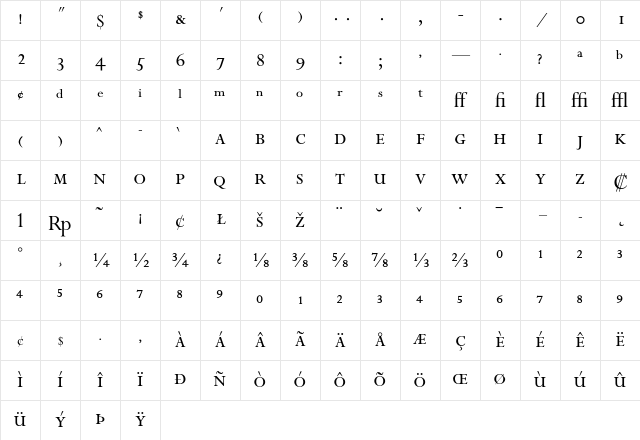
Perpetua Expert
Style: Expert
Complete Perpetua Expert glyph index. Displaying only characters natively supported by Perpetua Expert font.
Design Context for Perpetua
Perpetua is a composed and adaptable typeface that performs quietly and consistently across a wide range of design contexts.